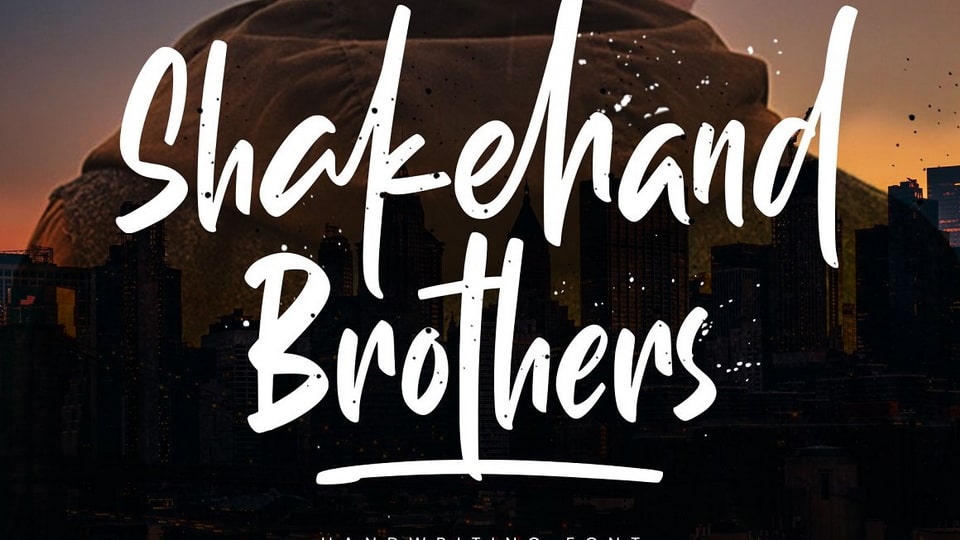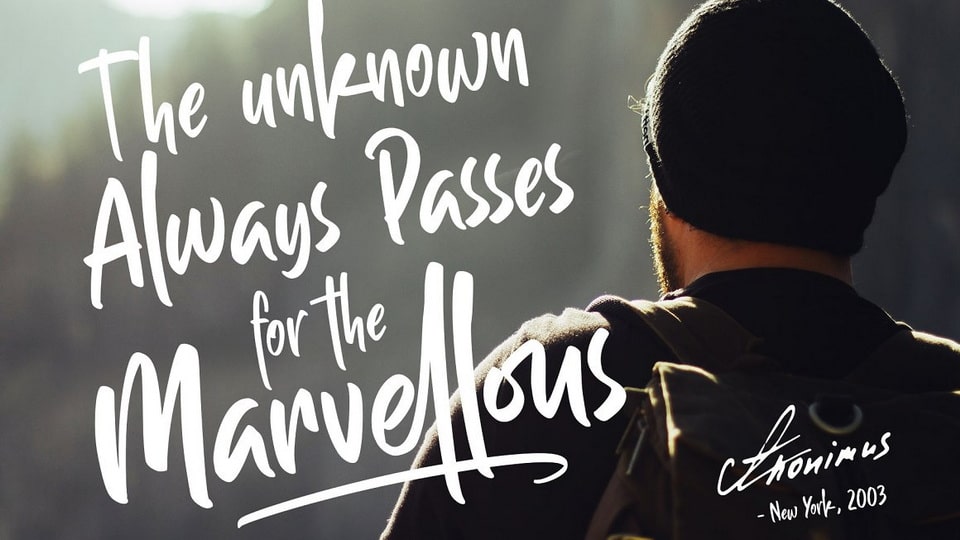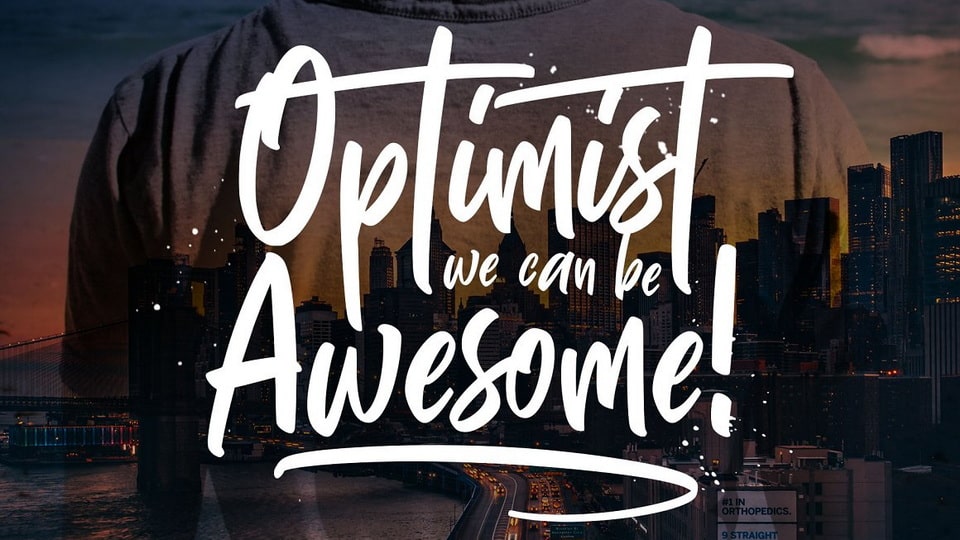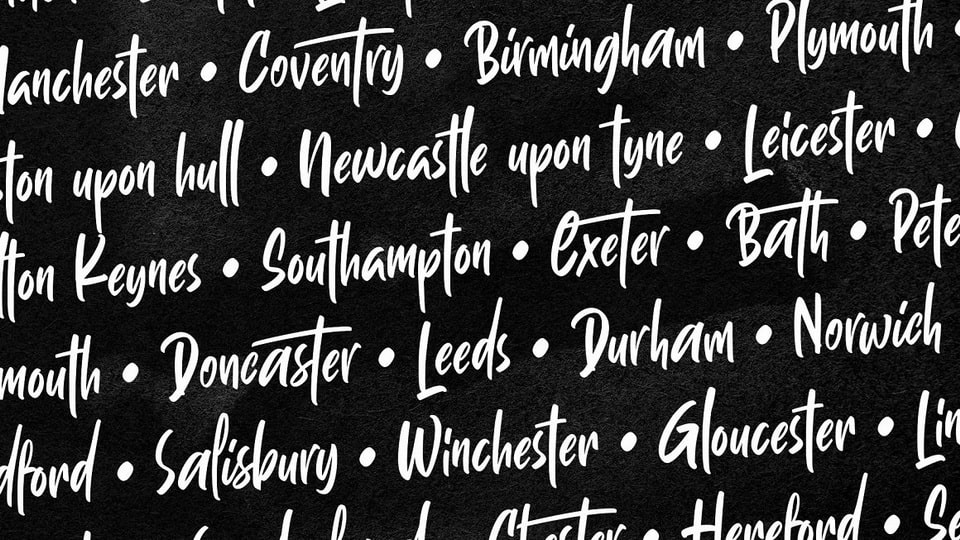
Shakehand Brothers is a playful handwritten font created with so much fun and solid brush. This font offers a super cool typographic design for your project because the letterform is so natural and unique.
Shakehand Brothers font is suitable for many project needs and many themes, you can use for quotes, headlines, titles, motion graphics, posters, flyers, decals, apparel, and more!